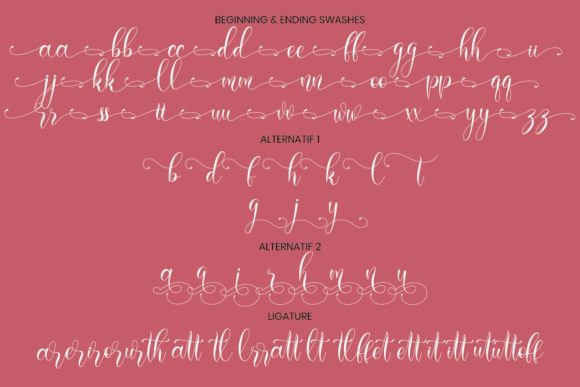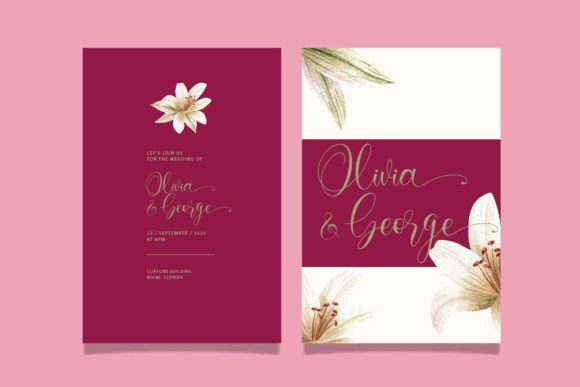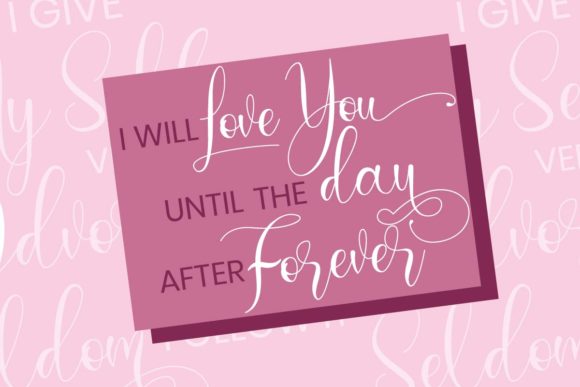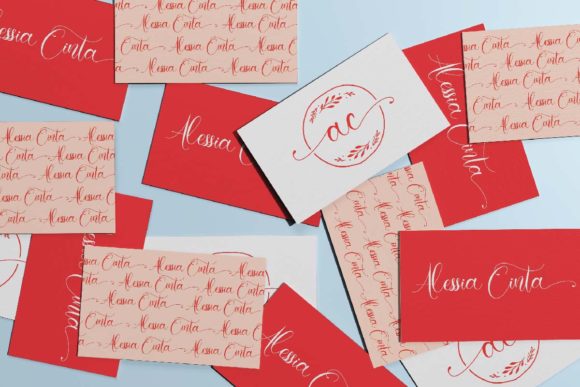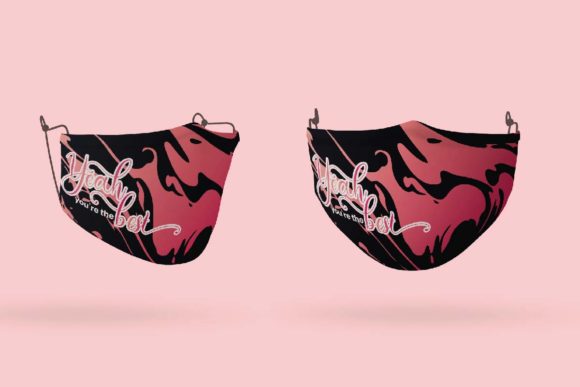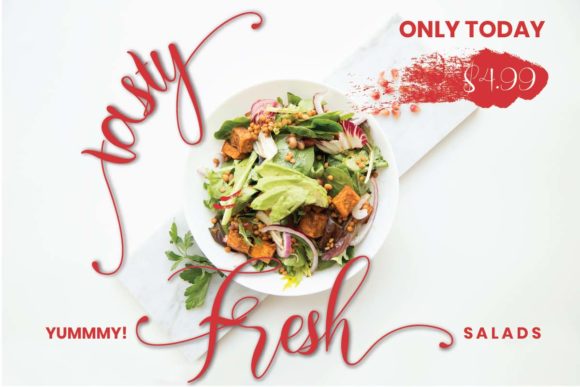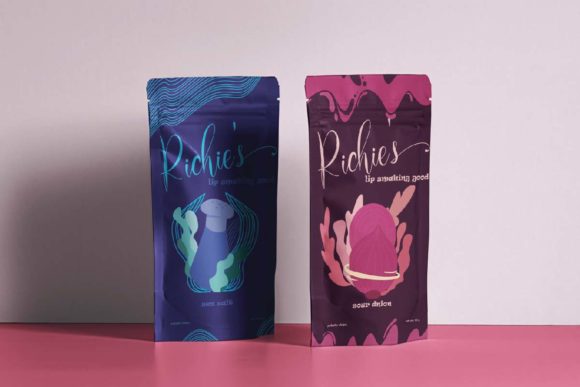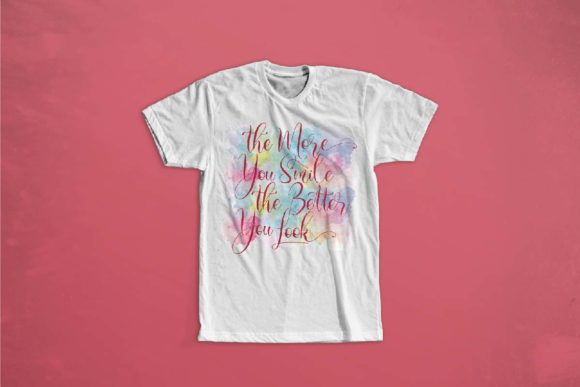
Loffers Font
About Loffers Font
“Loffers” is an elegant and flowing handwritten font that exudes grace and sophistication. With its varying baseline, smooth lines, gorgeous glyphs, and stunning alternates, it is perfect for a wide range of design projects. Here are some creative ideas to showcase the beauty of “Loffers” and make the most of its elegance:
1. Wedding Invitations: Create luxurious and refined wedding invitations using “Loffers” to add a touch of timeless beauty and elegance.
2. Thank You Cards: Craft heartfelt thank you cards with the font to express gratitude in a sophisticated and stylish manner.
3. Quotes and Inspirational Graphics: Design typography art featuring inspirational quotes, using “Loffers” to convey a sense of grace and refinement.
4. Greeting Cards: Design beautiful and elegant greeting cards for any occasion, making each one a work of art.
5. Logos and Branding: Use the font to design sophisticated logos and branding materials that leave a lasting impression.
6. Business Cards: Apply the font to business cards to showcase professionalism and style.
7. Social Media Posts: Enhance your social media graphics with “Loffers” to create visually appealing and elegant posts.
8. Stationery Sets: Design complete stationery sets with matching letterheads, envelopes, and notepads using the font’s varied glyphs.
9. Book Titles and Chapter Headings: Use “Loffers” to add an element of elegance to book titles and chapter headings in book designs.
10. Packaging and Labels: Apply the font to product packaging and labels to create a sense of luxury and sophistication.
11. Art Prints: Design art prints with the font for home decor or as thoughtful gifts for art lovers.
12. Magazine Covers: Use “Loffers” on magazine covers to convey a sense of elegance and allure.
13. Event Invitations: Create chic and upscale event invitations that make a lasting impression on recipients.
14. Website Headings: Use the font for website headings and titles to create a refined and polished appearance.
15. Personalized Gifts: Apply the font to personalized gifts, such as custom mugs or journals, to add an element of elegance.
“Loffers” is a font that brings sophistication and allure to any design. Its flowing and elegant style will elevate your creations, making them stand out with a touch of timeless beauty. Embrace the charm of “Loffers” and let it inspire you to create stunning designs that leave a lasting impression.